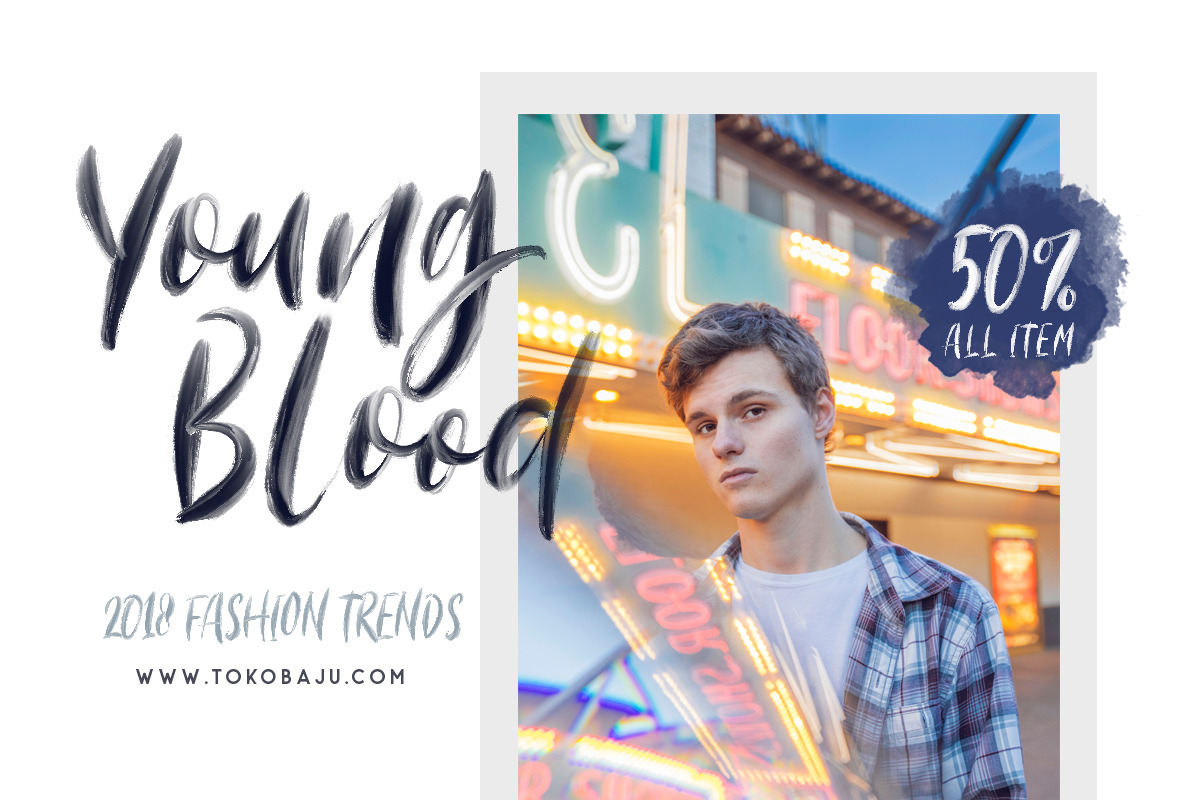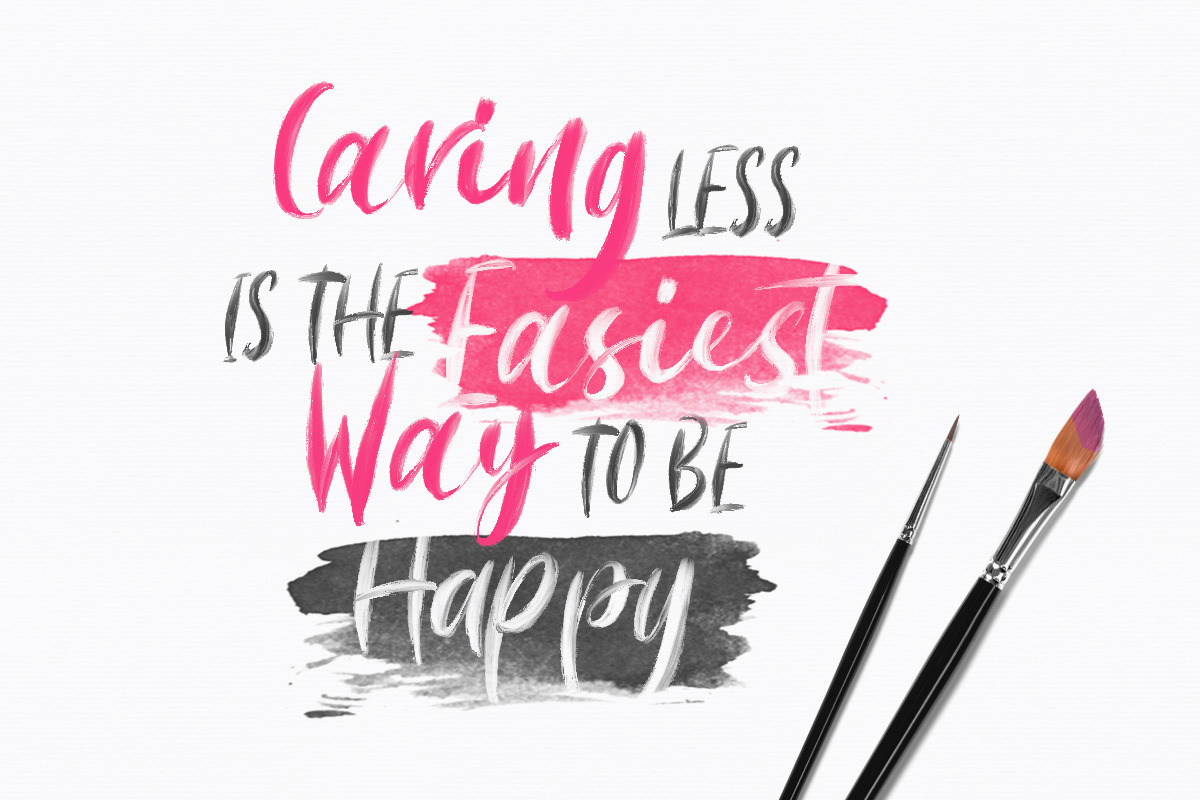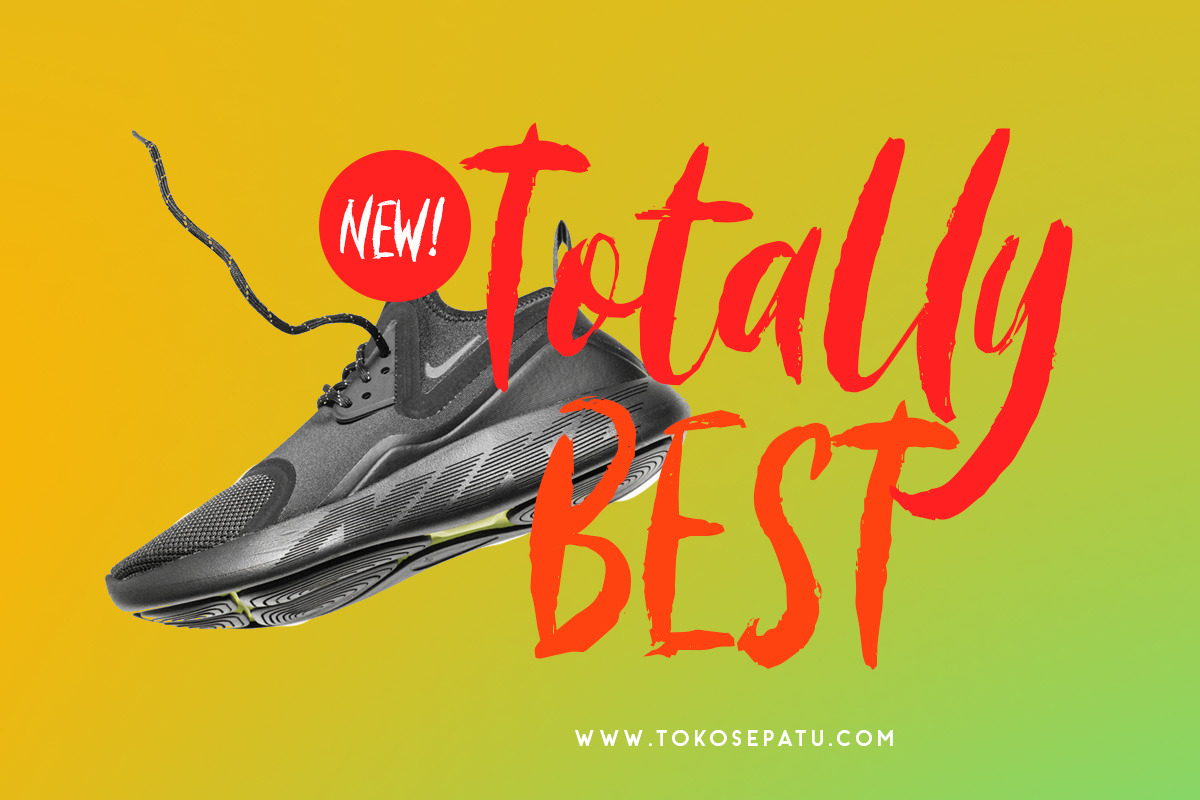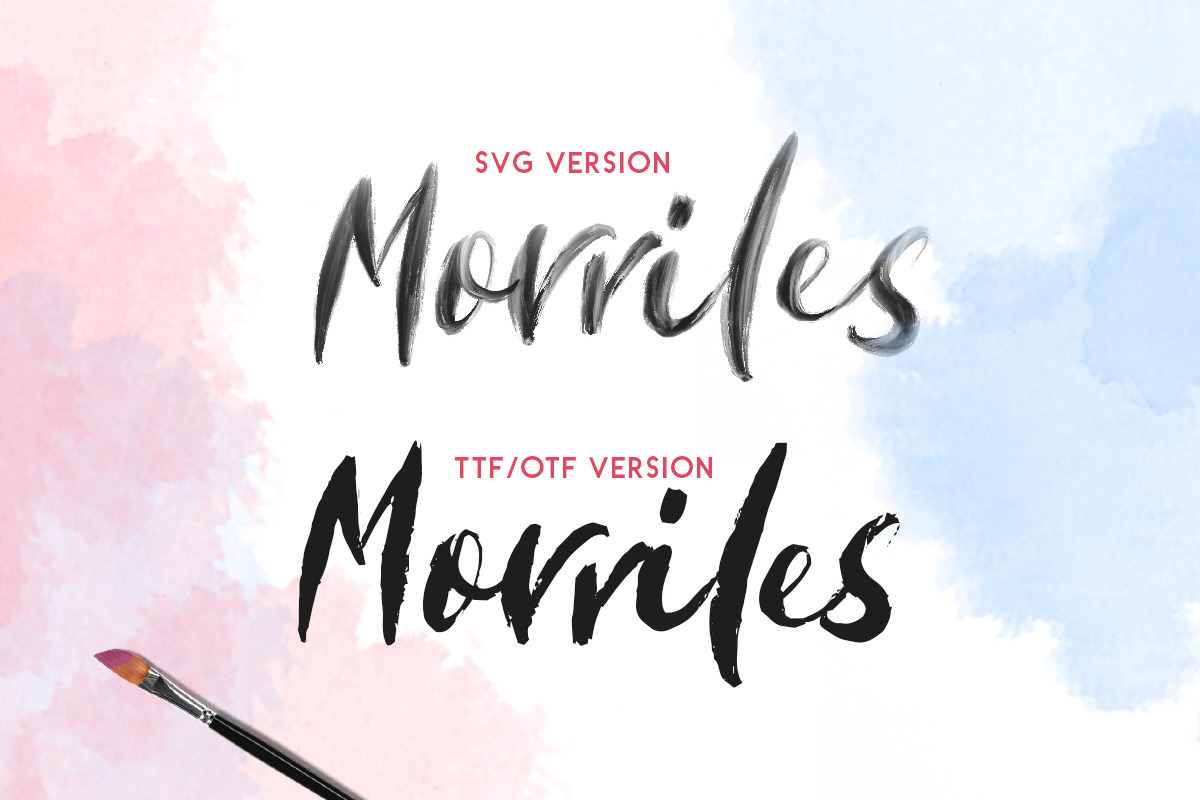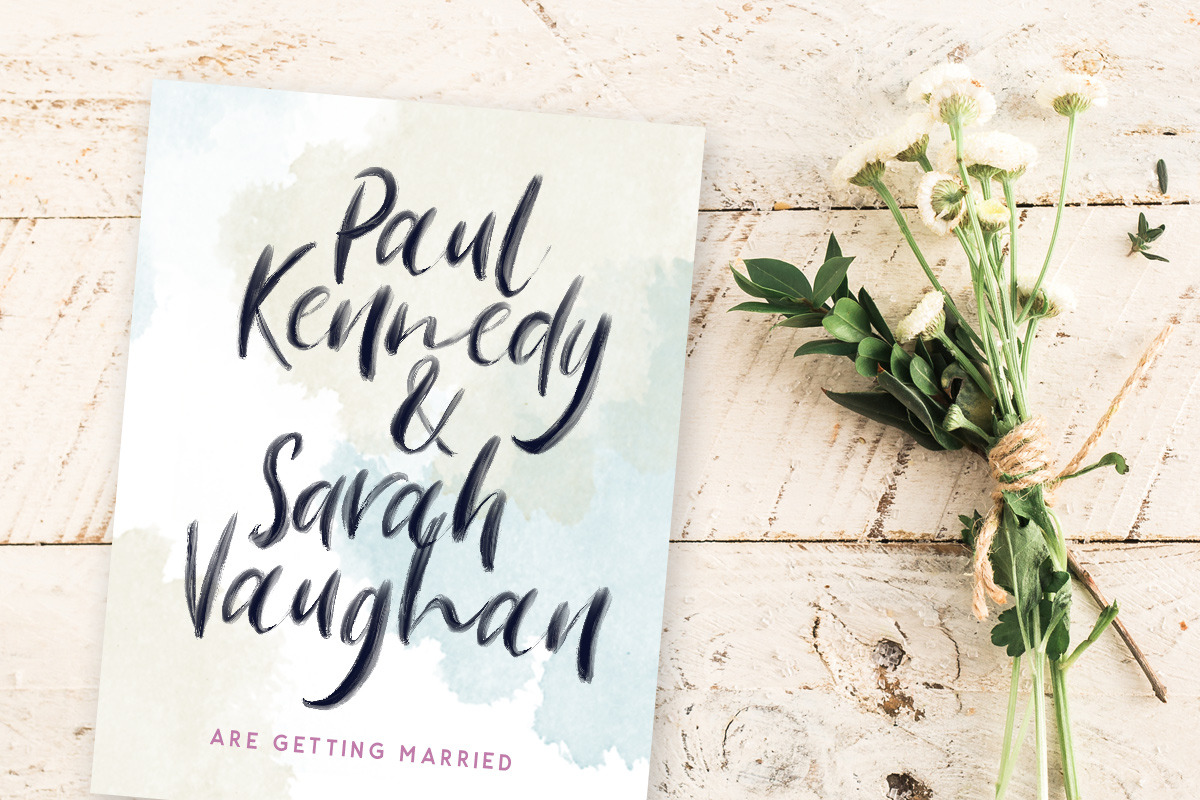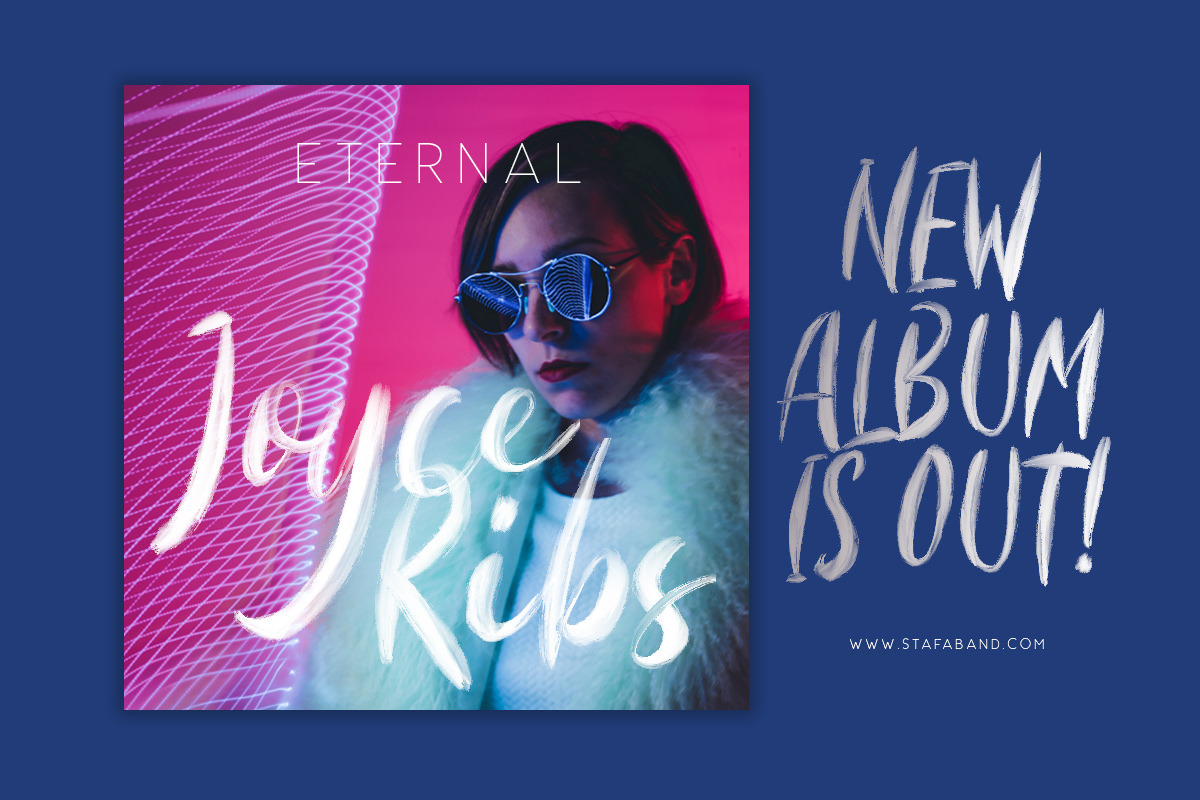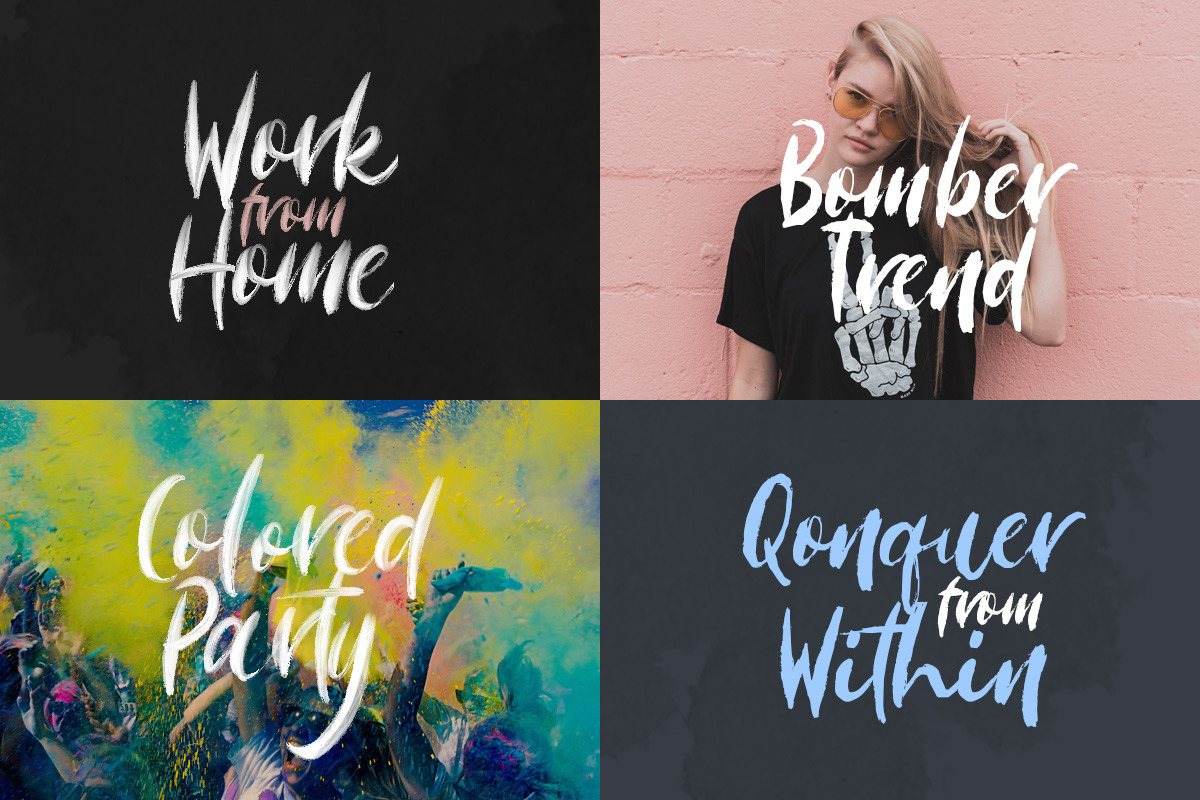
Morriles - SVG Font
Introducing, My first SVG font, Morriles!
Morriles is handmade font that contains the newest font format, SVG and two another format. You can use these fonts for various purposes such as making realistic handwriting, for promotions, or other purposes that will make your design more real as handmade.
This font made with bitmap format with high resolution, but don't worry, you still can change the color of the font by using layer style in photoshop.
Morriles - SVG Font by Sarid Ezra fits naturally into Branding, posters, packaging, typography.